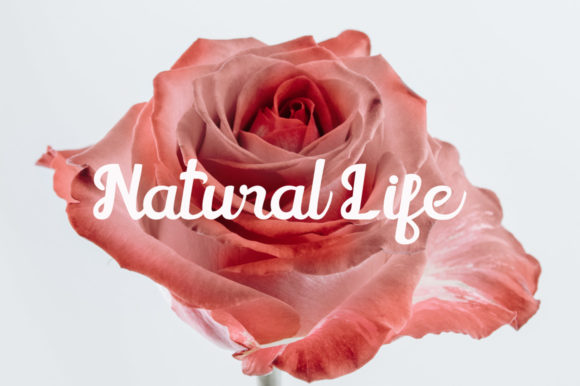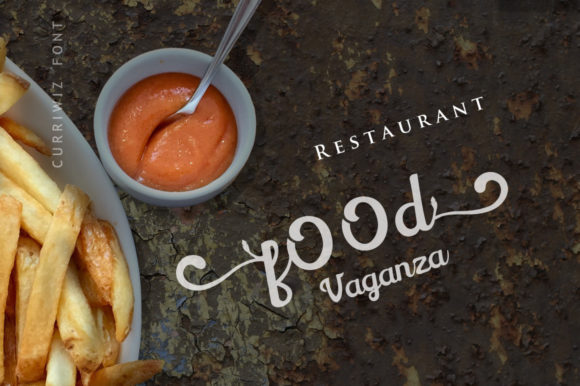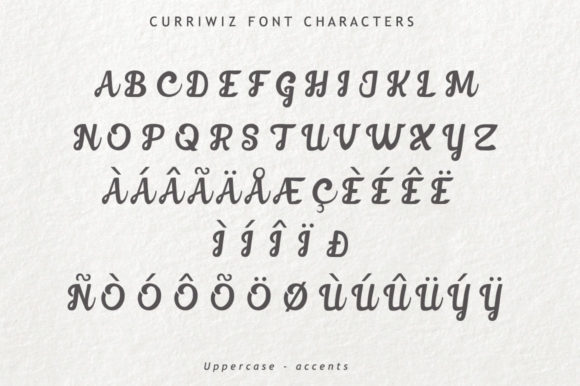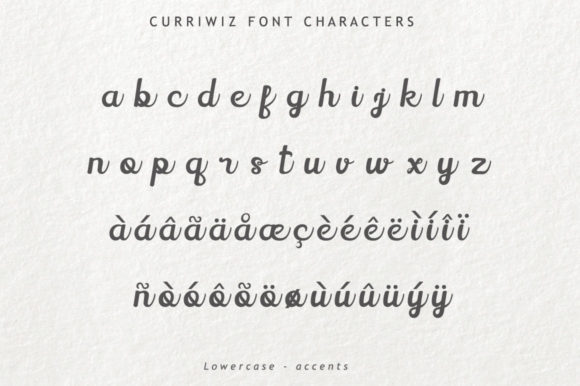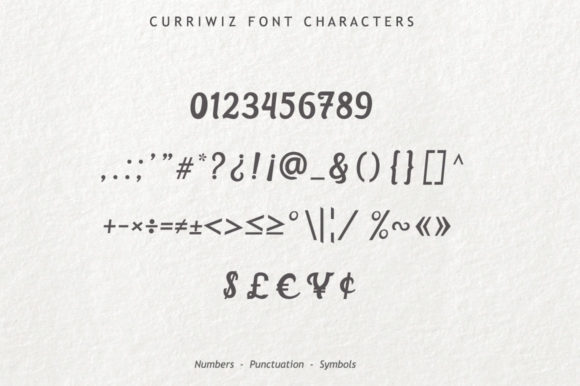
Curriwiz Font
Curriwiz is a beautiful script font with a natural design. Includes alternate characters that make this font perfect for logos, wedding invites, branding, product packaging, headers, and more.